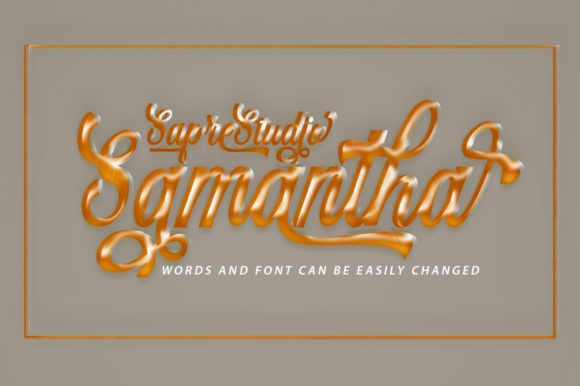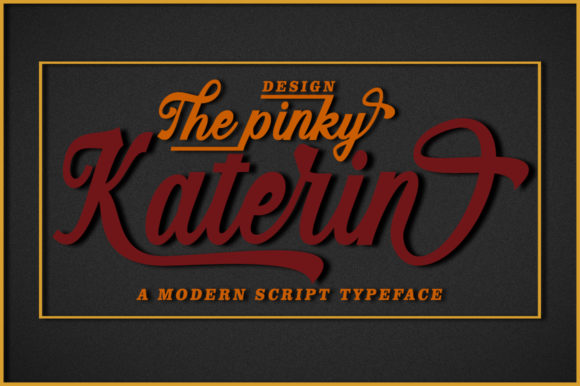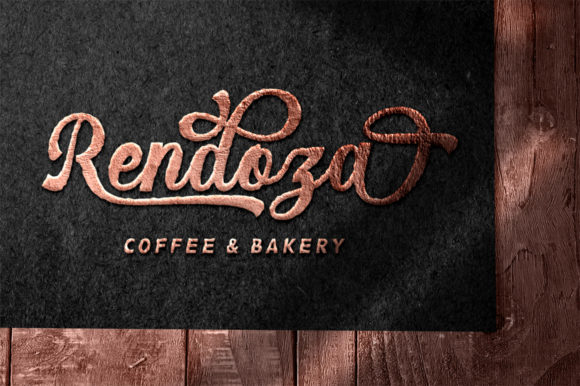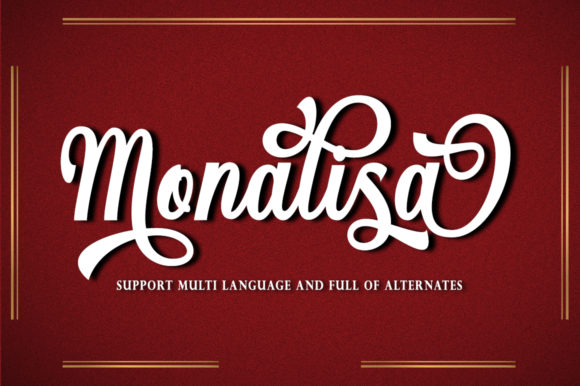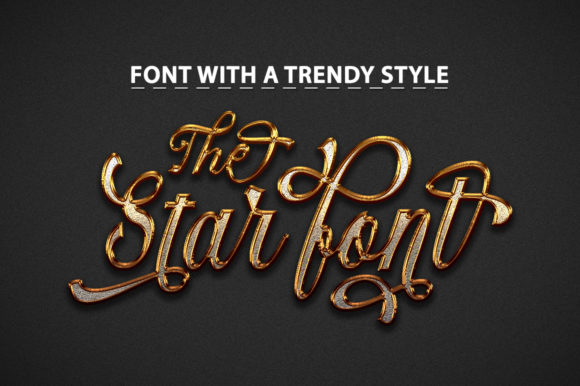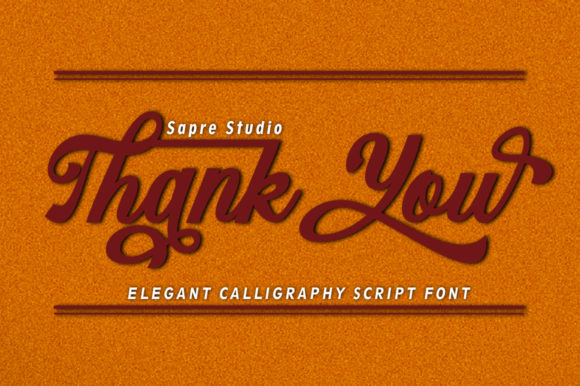
Introduction to Gravitafont Font
Have you ever stared at a blank canvas, eager to bring a creative project to life, only to be stumped by the perfect font to match your vision? For designers, finding the right typography can be a daunting task, but what if you stumbled upon a font that effortlessly elevates your design to the next level?
Enter the Gravitafont Font, a stunning handwritten font that exudes elegance and sophistication. With its beautiful, high-quality design, it’s no wonder this font has become a go-to choice for designers looking to add a touch of creativity to their work. Whether you’re working on a logo, magazine, or greeting card, the Gravitafont Font is sure to be a valuable addition to your design resource.
Key Features of Gravitafont Font
- High-quality font design for creative projects, suitable as a design resource for various applications.
- Unique, modern design aesthetic, perfect for adding a touch of sophistication to your creative project.
Honest Review: Gravitafont Font
As a designer, I’m always on the lookout for high-quality design resources to elevate my creative projects. Recently, I had the chance to try out the Gravitafont Font, and I’m excited to share my honest review with you.
What works well: ✨ The Gravitafont Font is incredibly versatile and can be used for a wide range of design projects, from logos to brochures. Its clean and modern design makes it perfect for creative projects that require a professional touch. The font is also available for free download, which is a major plus in my book!
However, I did encounter a few limitations: ⚠️ The font library is not as extensive as some other font resources I’ve used in the past, which can be a drawback for designers who require a wide range of font options. Additionally, the font can be a bit tricky to customize, especially for those who are new to font design.
Overall, I’m impressed with the Gravitafont Font and would definitely recommend it to designers who are looking for a high-quality, free design resource. With a little practice and patience, you can achieve amazing results with this versatile font.
To get the most out of the Gravitafont Font, use it in creative projects that require a unique and high-quality design resource. Experiment with different font sizes, colors, and arrangements to create visually appealing designs.
The Gravitafont Font is ideal for use in a variety of projects, including digital art, graphic design, and marketing materials. It’s also a great free download for anyone looking for a high-quality design resource with a transparent background.